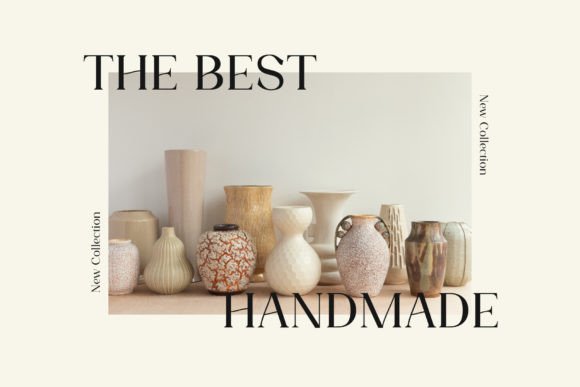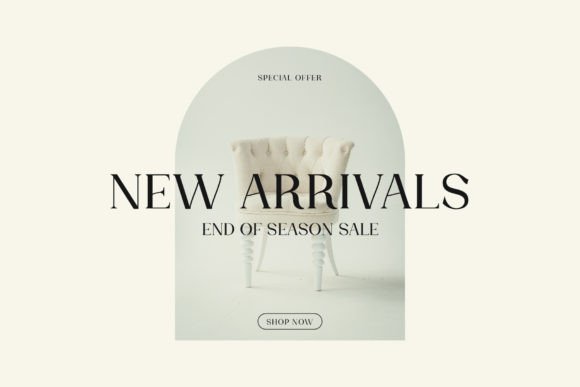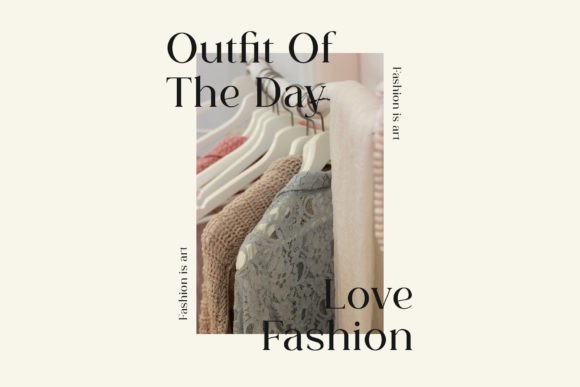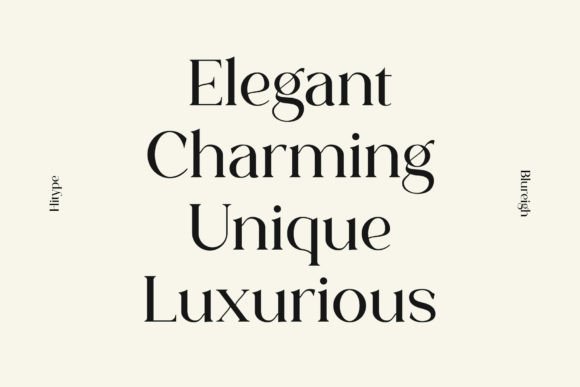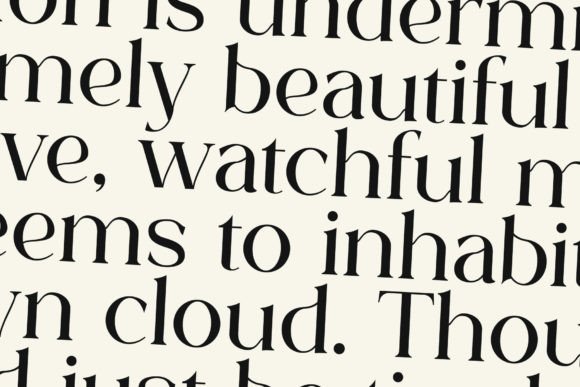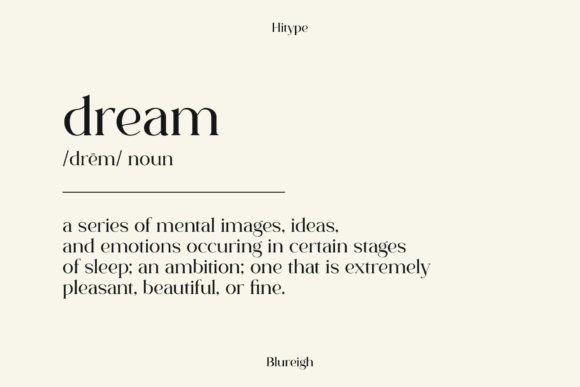
The Elusive Font: A Designer’s Quest for Blureigh
I still remember the countless hours I spent searching for the perfect font for a luxury brand project. My client wanted something sophisticated, elegant, and feminine, but I was coming up blank. That’s when I stumbled upon Blureigh Font, a hidden gem that exceeded my expectations. In this article, I’ll share my experience with Blureigh, its unique features, and how to make the most of this stunning serif font.
First Impressions: What I Love About Blureigh
Blureigh Font is a masterclass in elegant design. Here are a few things that immediately caught my attention:
- ✨ Sophisticated serifs: Blureigh’s serifs are sleek and refined, adding a touch of luxury to any design.
- ✅ Fashionable touch: The font’s unique style is perfect for modern, chic designs that require a bit of flair.
- 💃 Feminine charm: Blureigh’s elegant lines and curves make it an excellent choice for projects that require a feminine touch.
The Not-So-Perfect Font: Small Quirks and Limitations
While Blureigh is an exceptional font, it’s not without its quirks:
- 🤔 Limited use in body text: Due to its elegant and refined nature, Blureigh might not be the best choice for lengthy body text. It’s better suited for headings, titles, and short paragraphs.
- ⚠️ Kerning issues on certain platforms: Some users have reported kerning issues when using Blureigh on certain platforms. However, this can be easily fixed by adjusting the kerning settings.
The Story Behind Blureigh
Blureigh Font was designed with luxury and elegance in mind. The creator aimed to craft a font that exudes sophistication and charm, perfect for high-end designs. The result is a stunning serif font that’s both modern and timeless.
| Font Name | Blureigh Font |
| Author | Hitype |
| What type of projects is Blureigh best suited for? | Luxury, elegant, and feminine projects, such as fashion, beauty, and high-end brand designs. |
| Can I use Blureigh for body text? | While possible, Blureigh is better suited for headings, titles, and short paragraphs due to its elegant and refined nature. |
| Is Blureigh a script font? | No, Blureigh is a serif font with a unique and elegant style. |
Blureigh Font is a stunning addition to any designer’s toolkit. Its unique blend of sophistication, elegance, and charm makes it perfect for luxury and high-end designs. By understanding its features, quirks, and uses, you can unlock the full potential of this beautiful serif font.